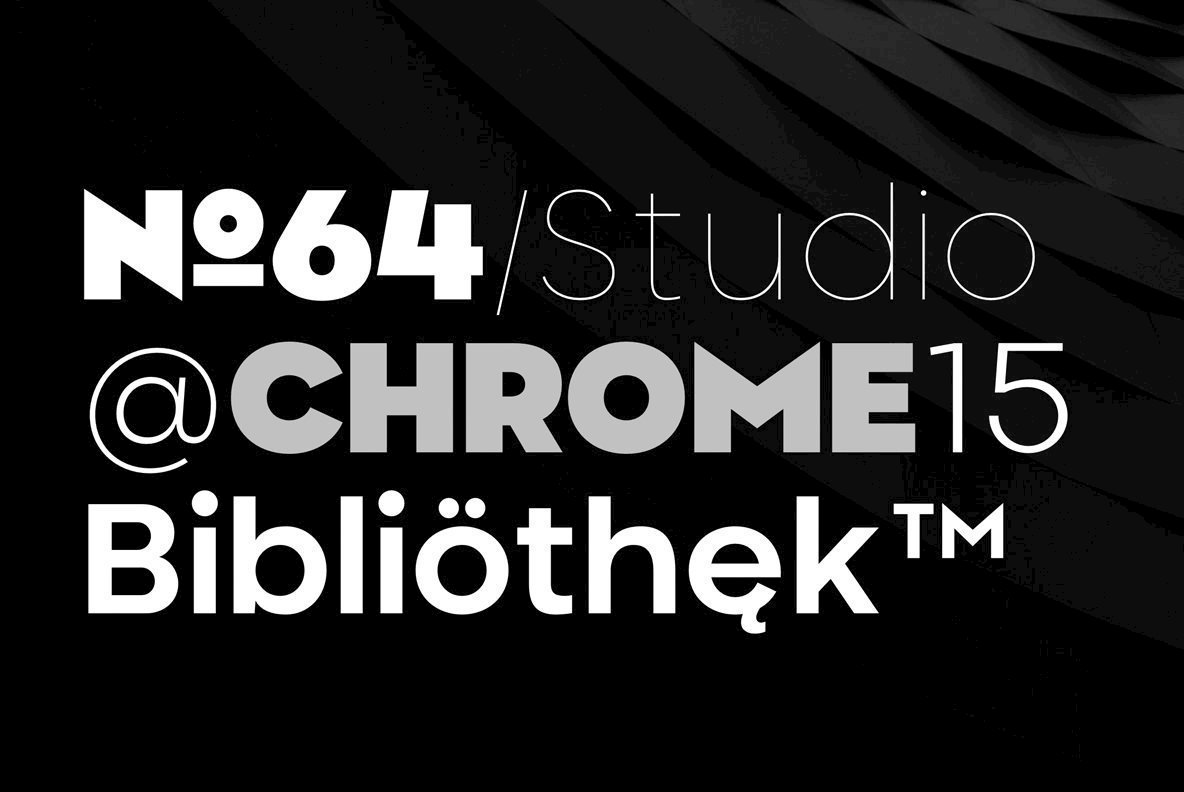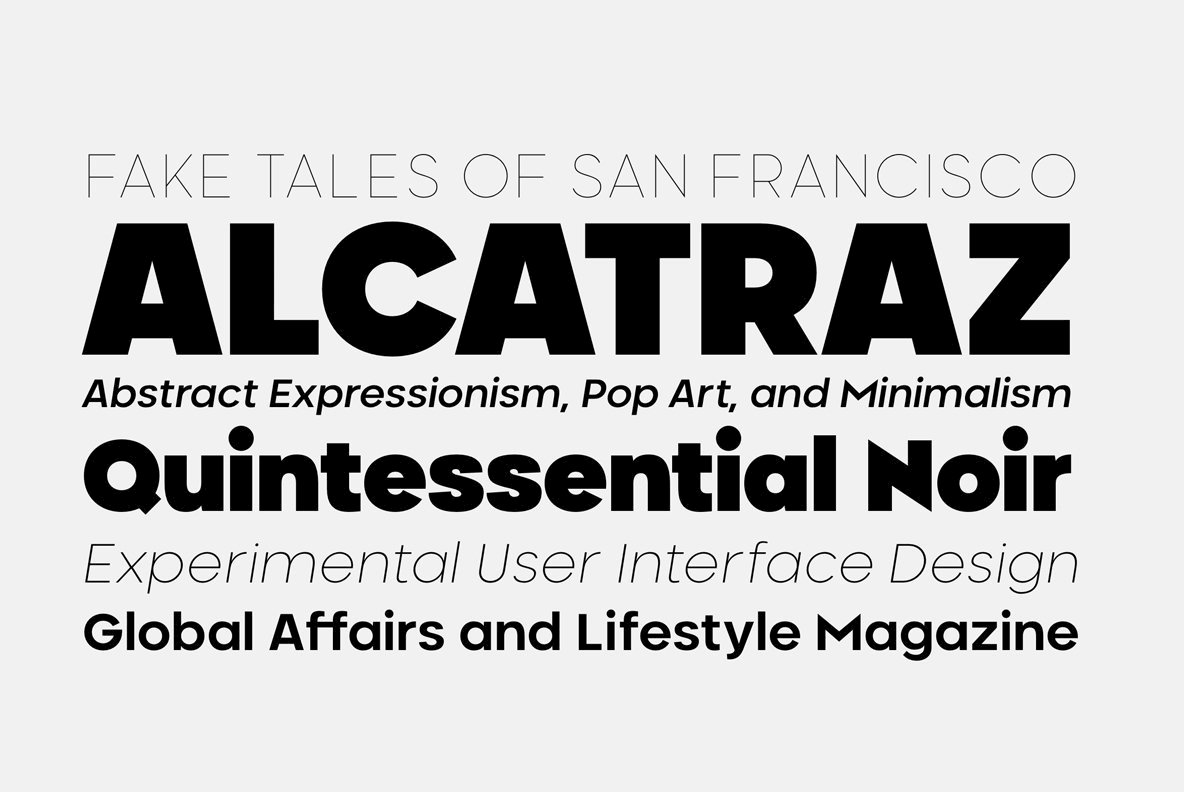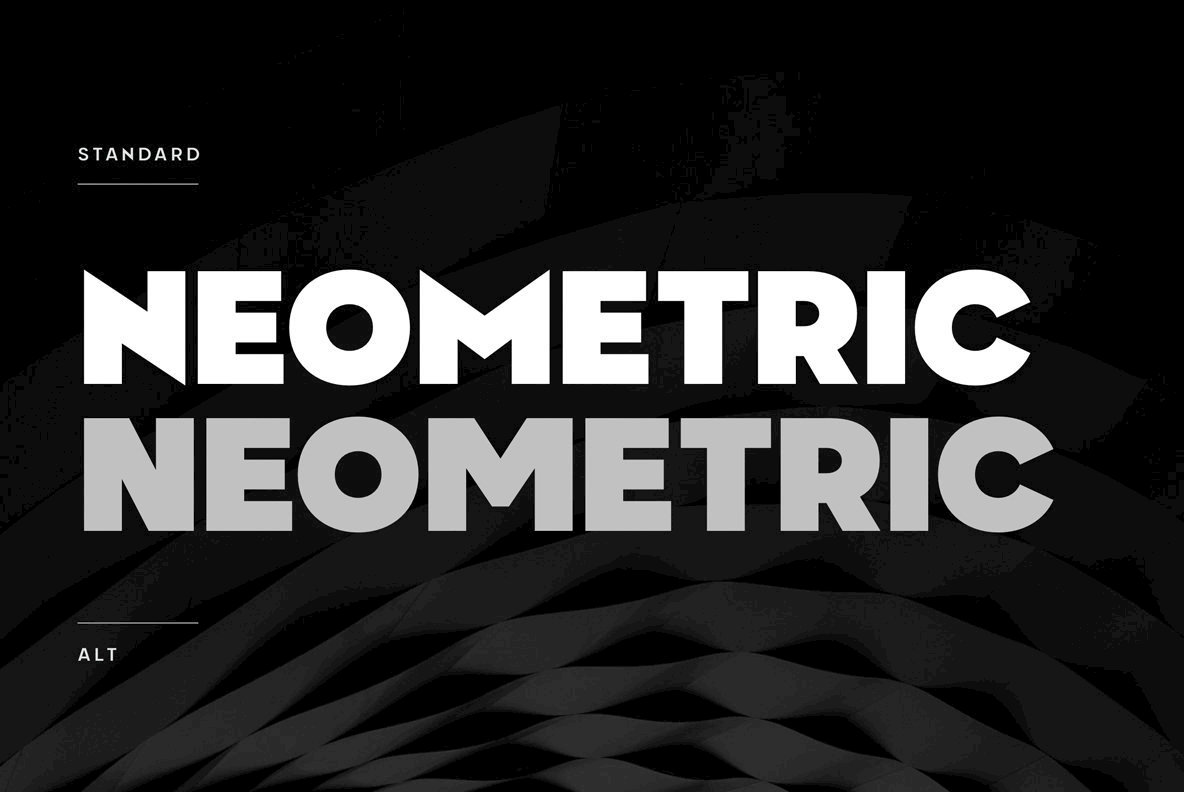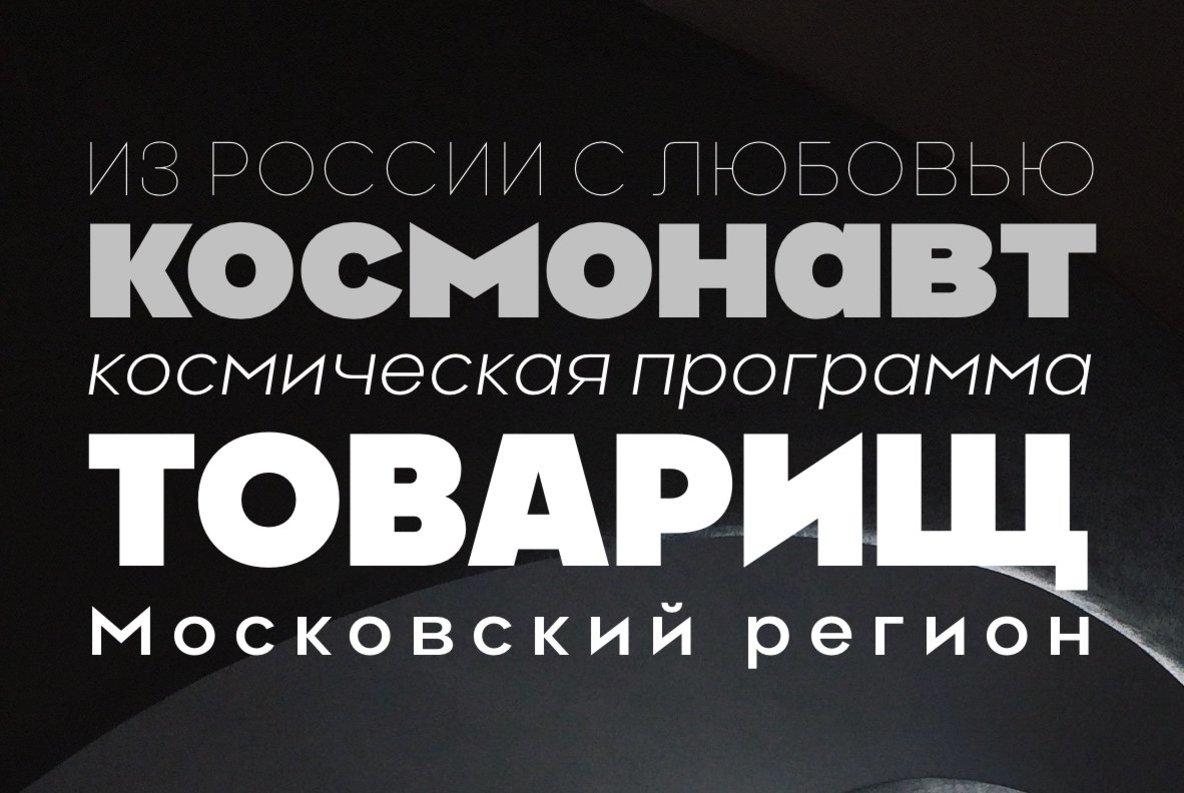
Neometric Font
Neometric is a contemporary sans serif that is built from a geometric foundation but with a more natural approach to the heavier weights creating an enhanced visual approach throughout. The standard version features sharp apex tops on the N & M characters creating a unique and powerful look that would be the perfect font for branding, digital or offline treatments.
Neometric features extensive European language support as well as basic Cyrillic to add to the flexibility and useability for big brands and small companies alike.
The font is made up of 36 styles, including two subtle design variations each featuring 9 weights plus matching italics.